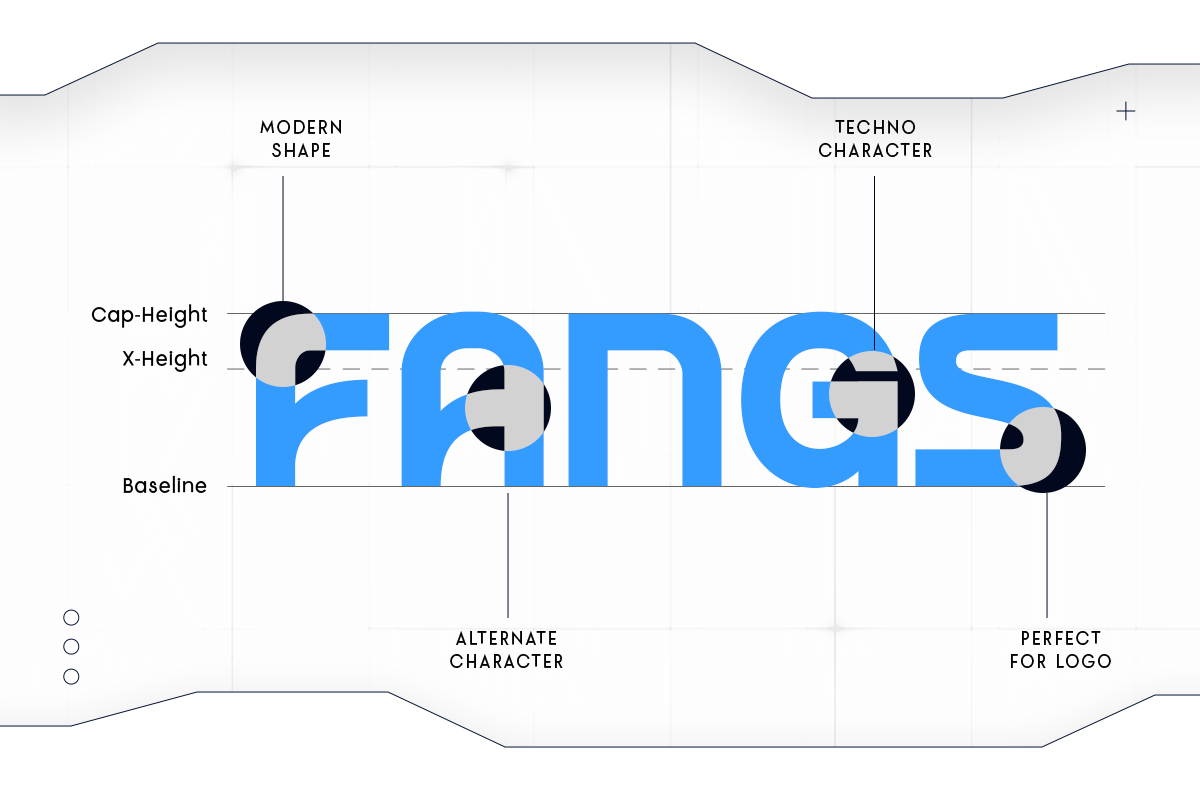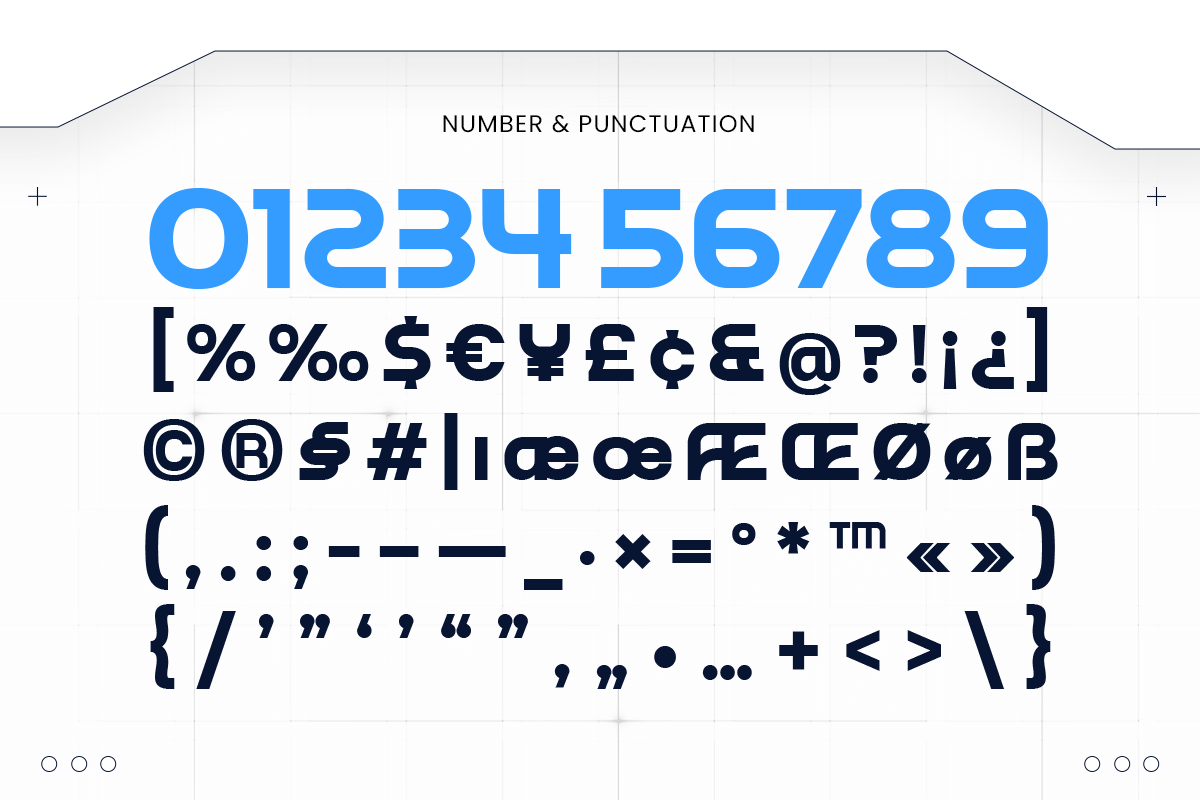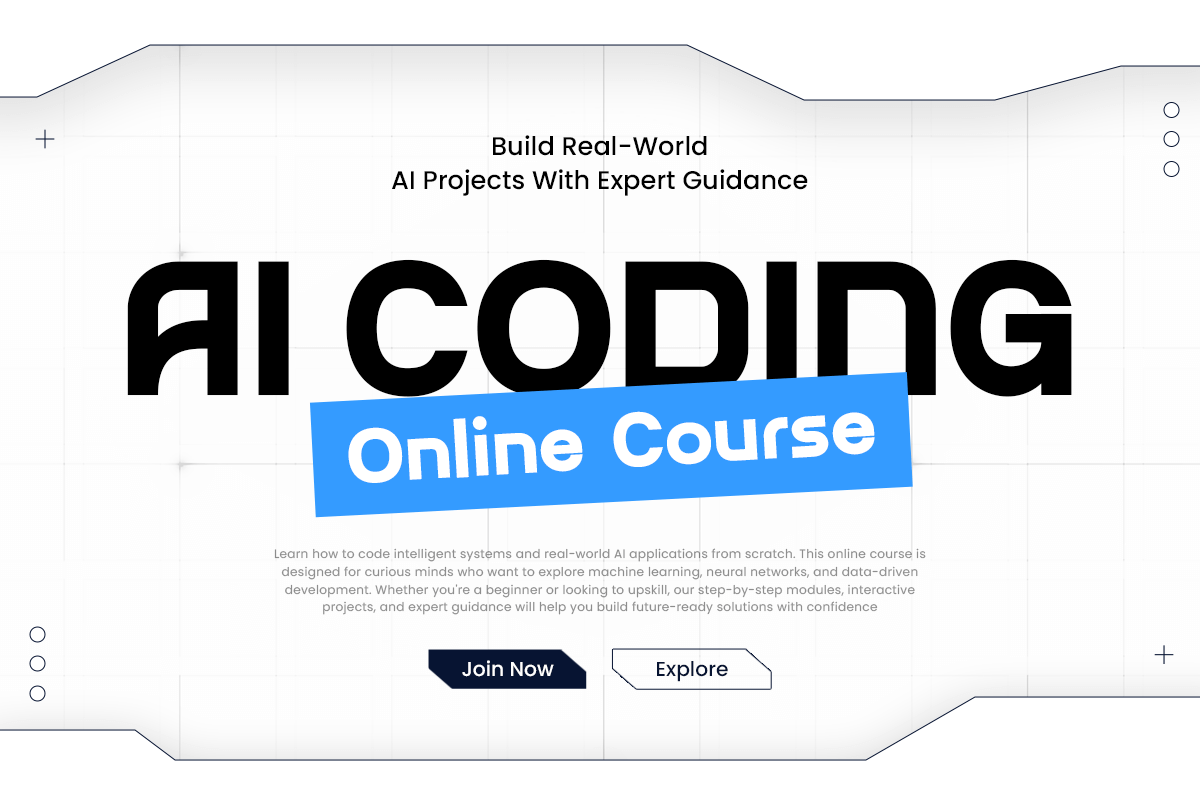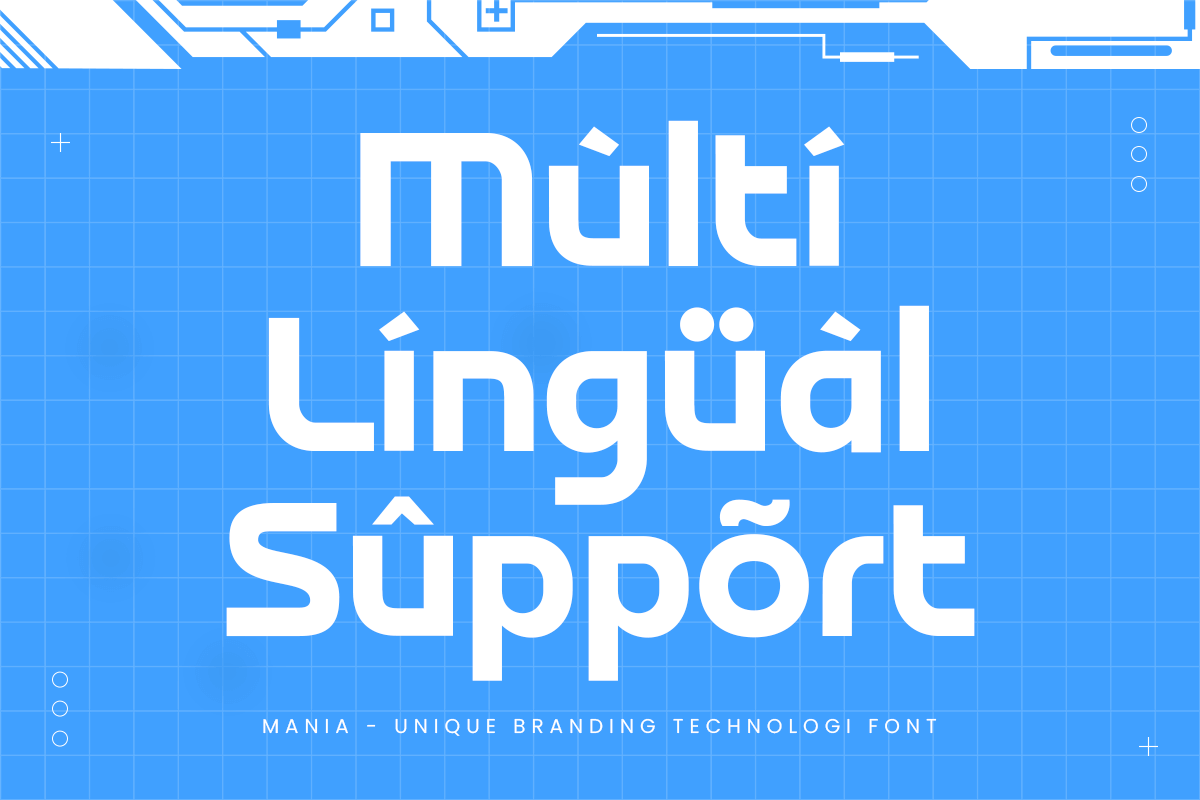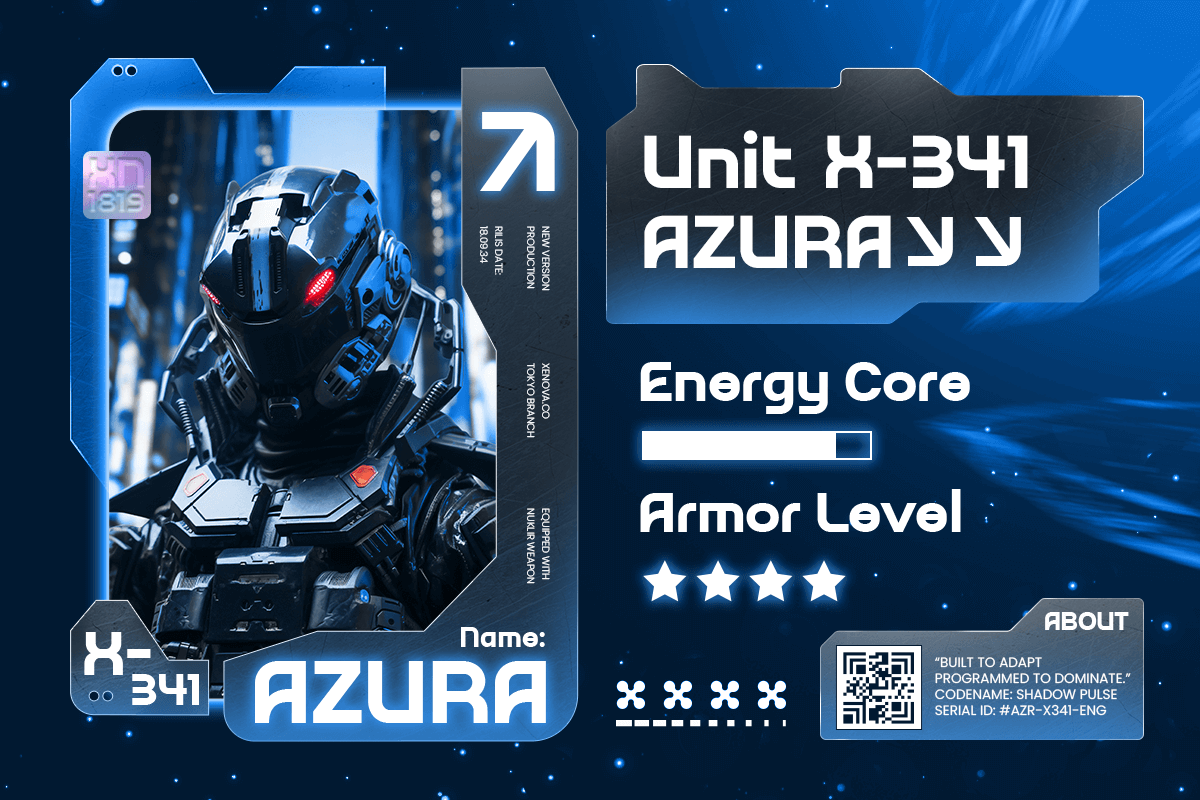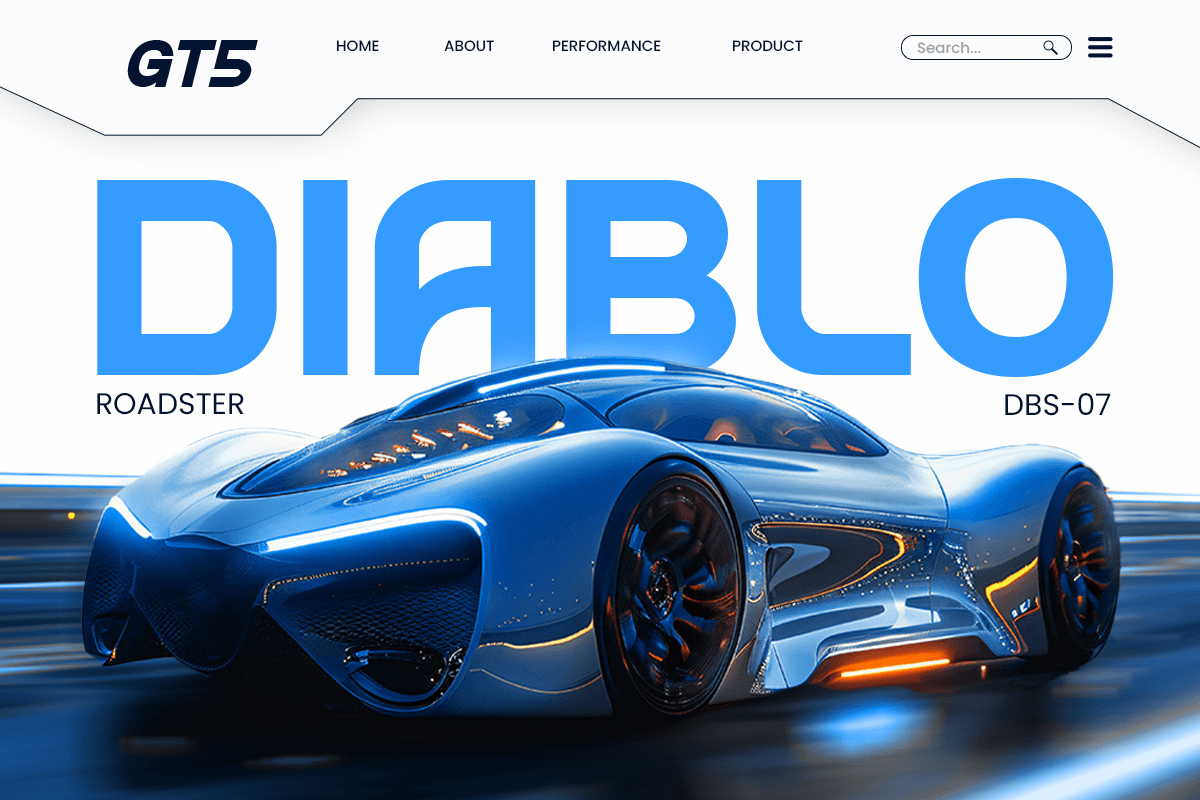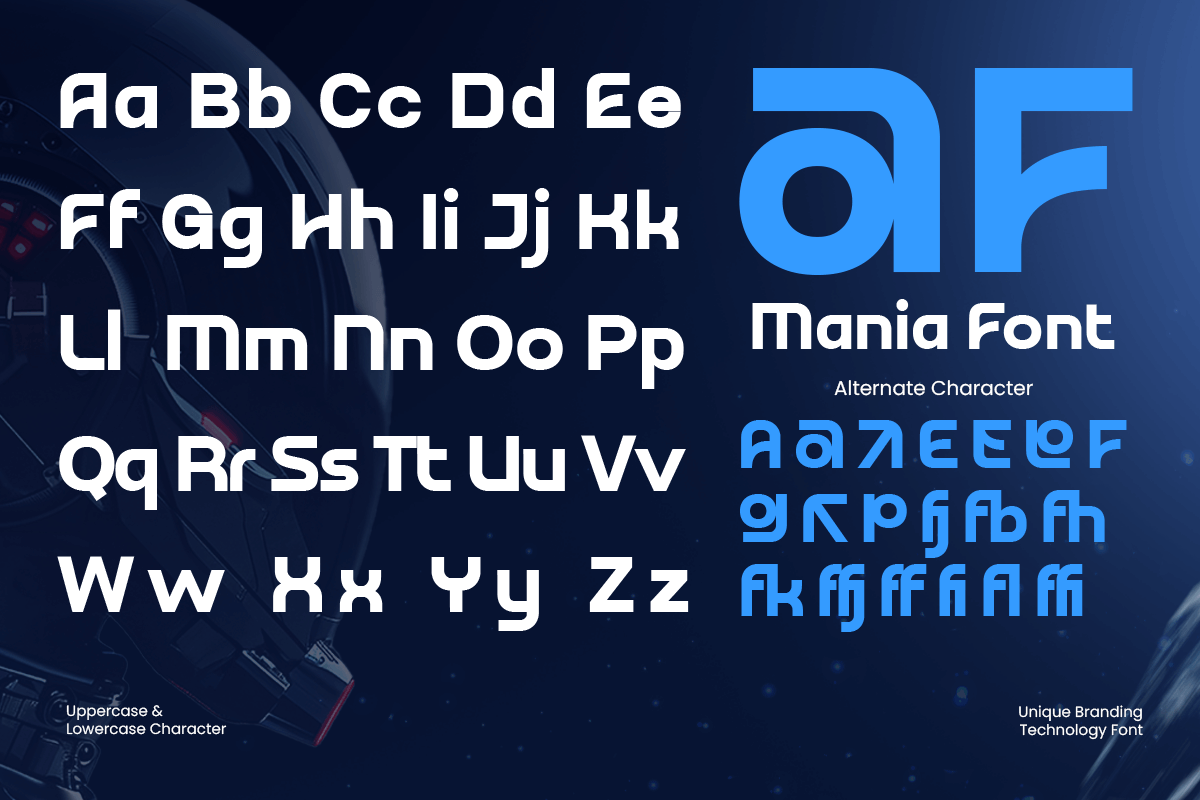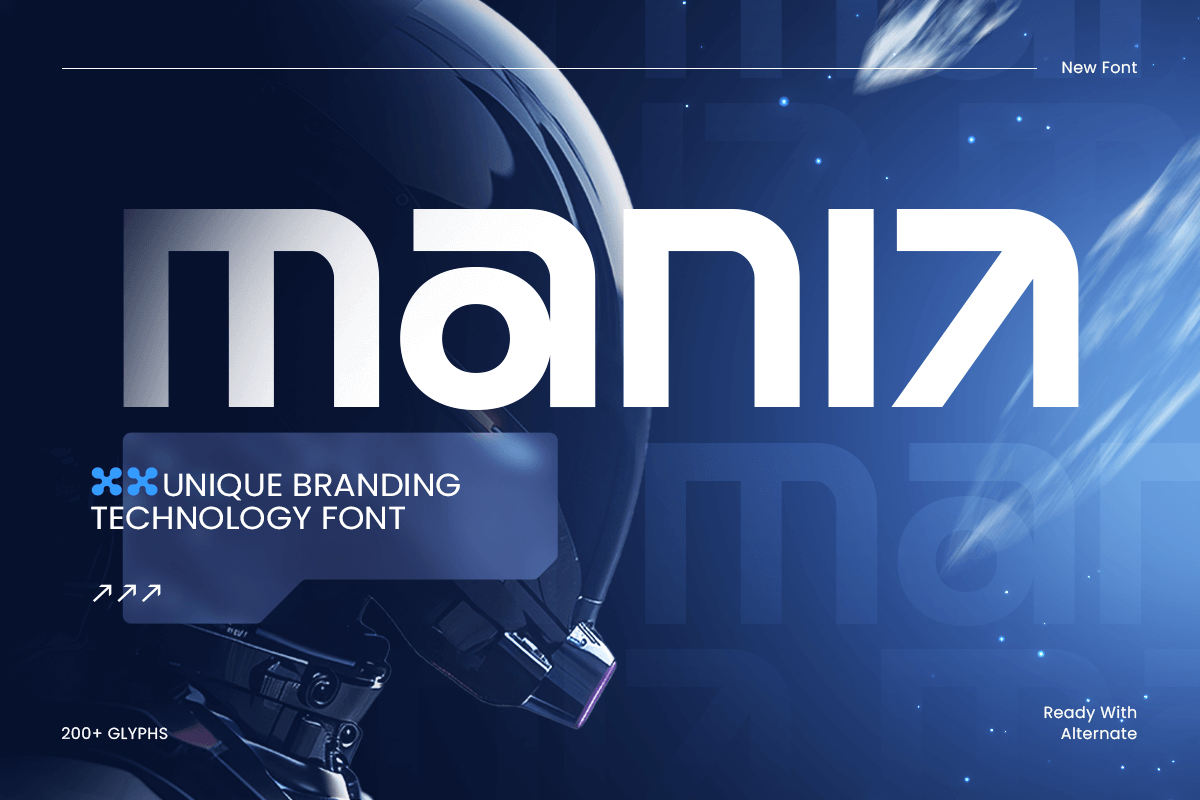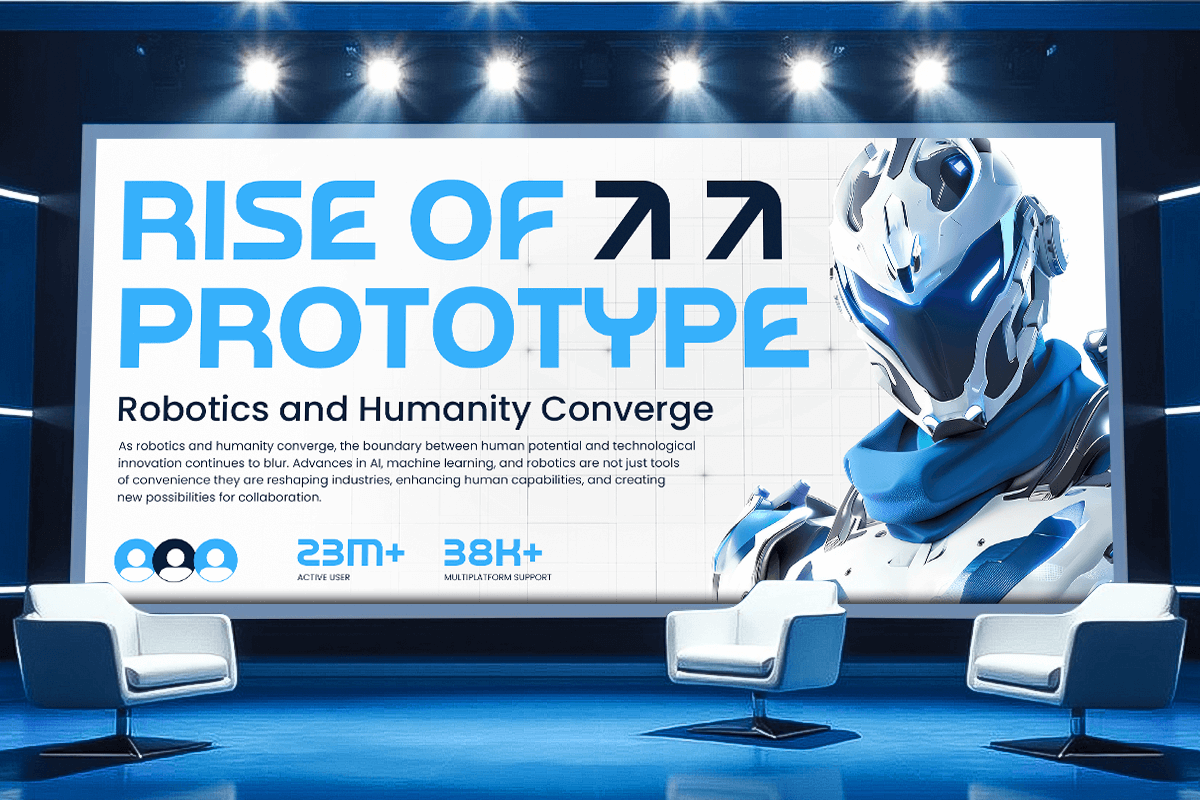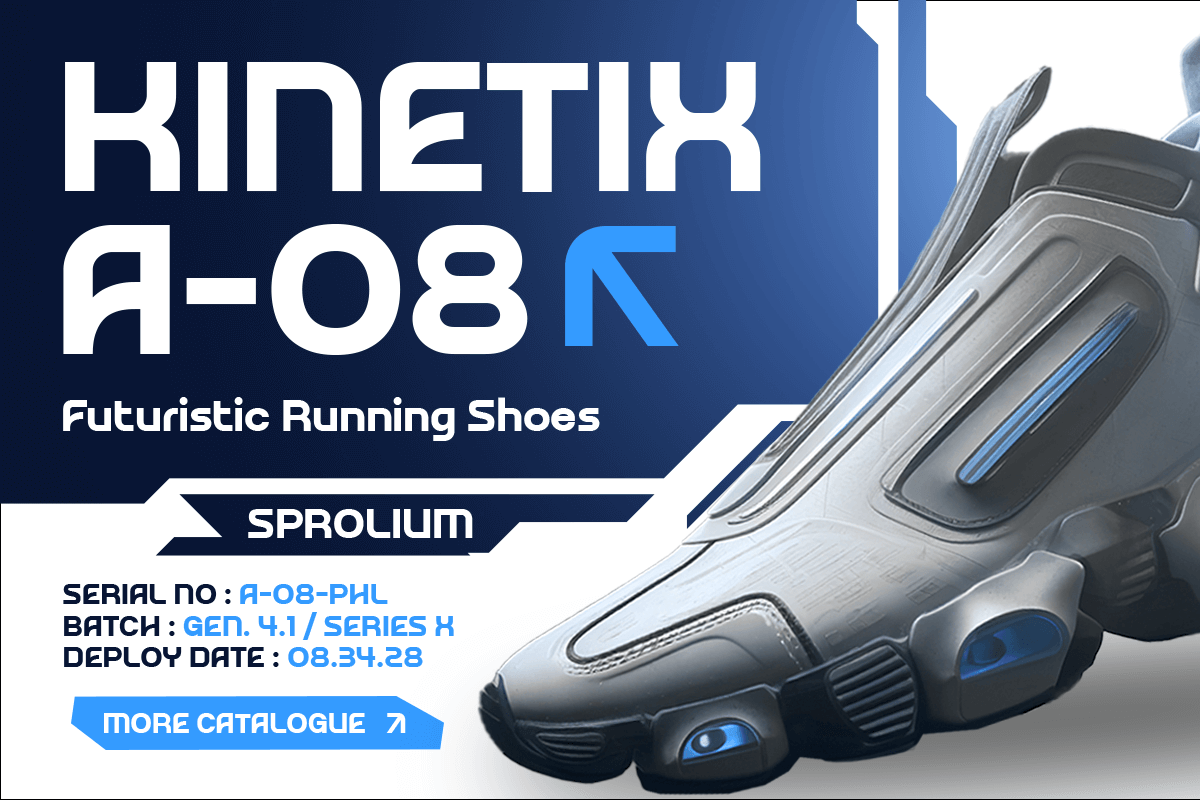
Mania - Branding Technology Font
Mania – Branding Technology Font Mania is a modern technology branding font designed to deliver a futuristic, clean, and innovative visual identity. Featuring sleek letterforms, geometric structure, and a contemporary tech-inspired style, Mania is perfect for logos, startups, digital products, apps, websites, and cutting-edge branding projects.
Built for modern digital environments, Mania combines clarity with a strong technological aesthetic, ensuring excellent readability while maintaining a distinctive and forward-thinking character. Its versatile design makes it ideal for tech companies, fintech startups, AI brands, software products, and designers seeking a modern technology font.
Mania – Branding Technology Font Features:
- Modern technology style with futuristic character
- Ideal for logos, startups, apps, and digital branding
- Uppercase, lowercase, numerals, and punctuation included
- Clean geometric structure with tech-inspired design
- Perfect for digital, startup, and innovation-focused projects
Create a futuristic brand identity with Mania – the technology font built for modern innovation.